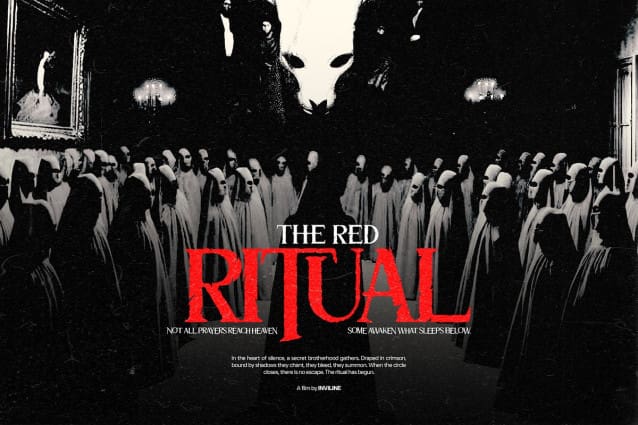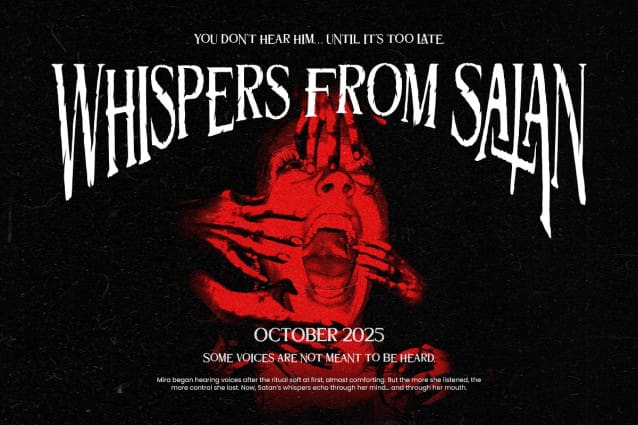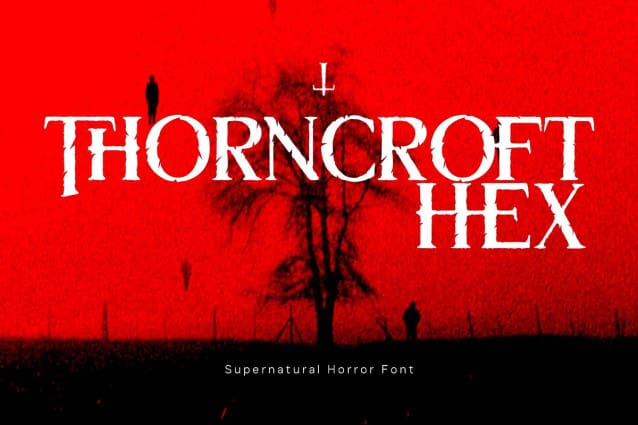
Thormcroft Hex Font
Thorncroft Hex Font is a haunting serif horror font crafted to channel dark magic, demonic lore, and vintage occultism into your typography. With rough, thorn-like edges and ritualistic alternate glyphs, this font conjures a chilling atmosphere straight from a cursed manuscript or supernatural thriller.
Designed for horror movie posters, cult book covers, and sinister branding, Thorncroft Hex blends elegance with eerie decay — the perfect typographic spell for your darkest designs. Whether you’re summoning dread or casting mystery, this font is your grimoire.